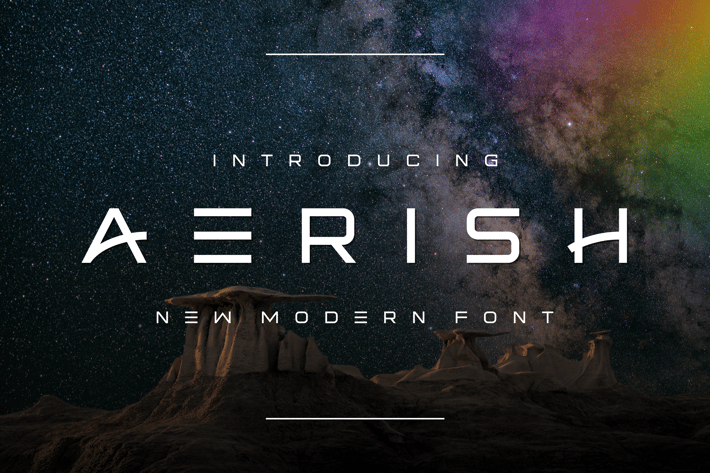
Aerish Font
Introducing our new product Aerish Font
Aerish Font is a bold and authentic display font. The font is suitable for any branding project like logo, t-shirt printing, esport, and many more. outstanding in a wide range of contexts.